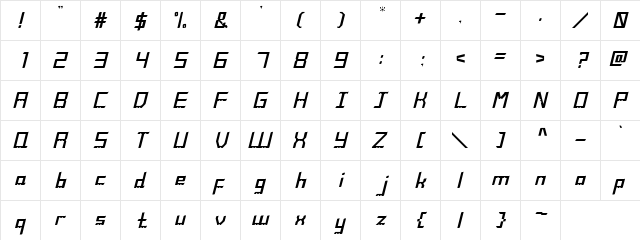
ZeFast Regular
| Designer | feliajosephine |
Design Context for ZeFast Typeface
ZeFast offers clean, dependable letterforms without strong stylistic allegiance, making it a practical choice for designers who need flexibility.
Pro Tip: Pair ZeFast with a font of contrasting weight or personality to build a more expressive typographic hierarchy.